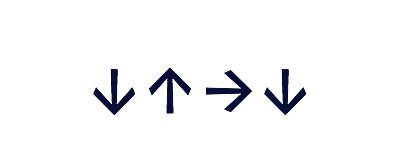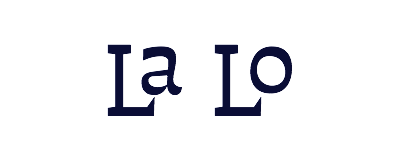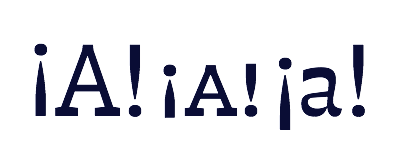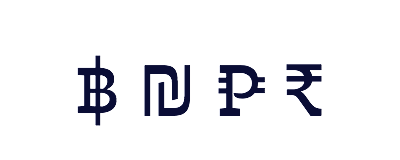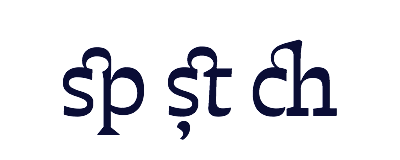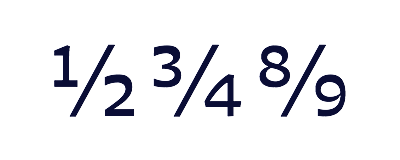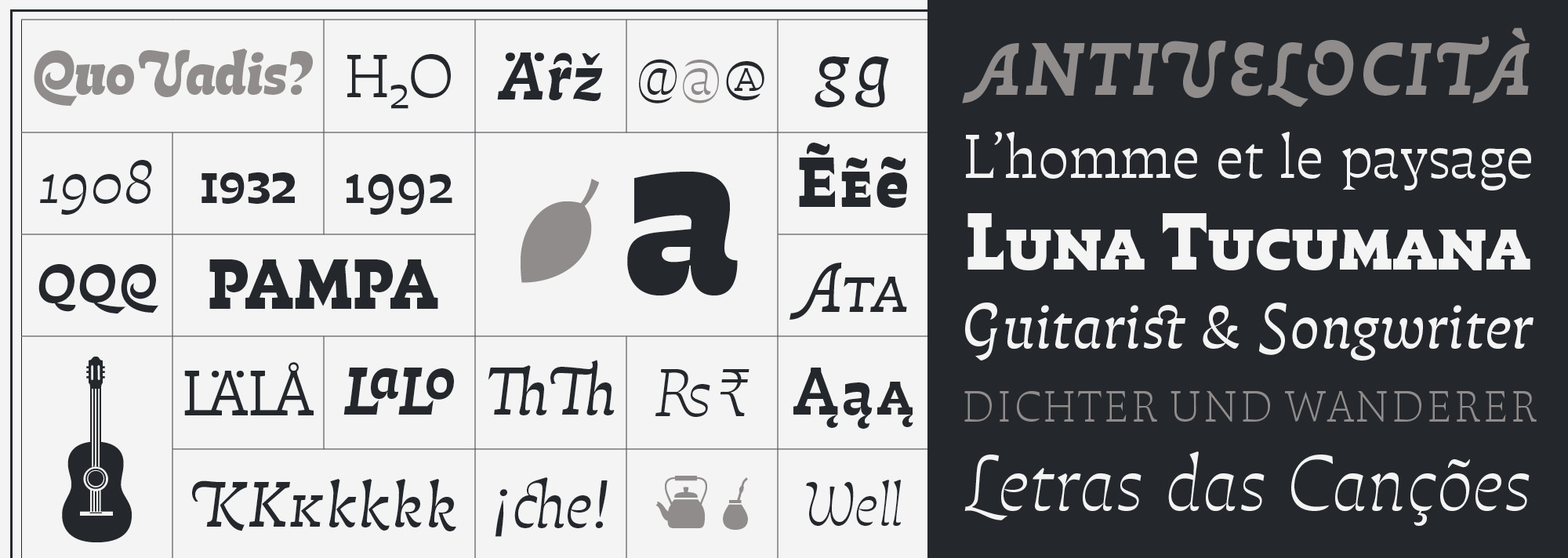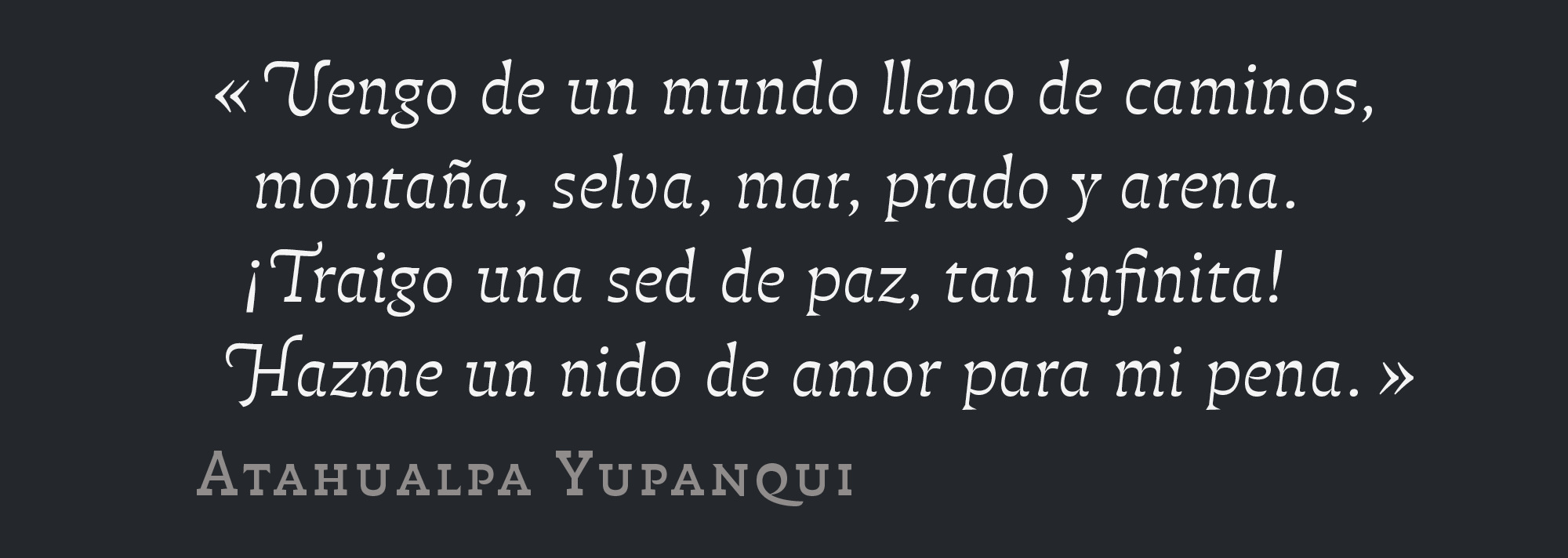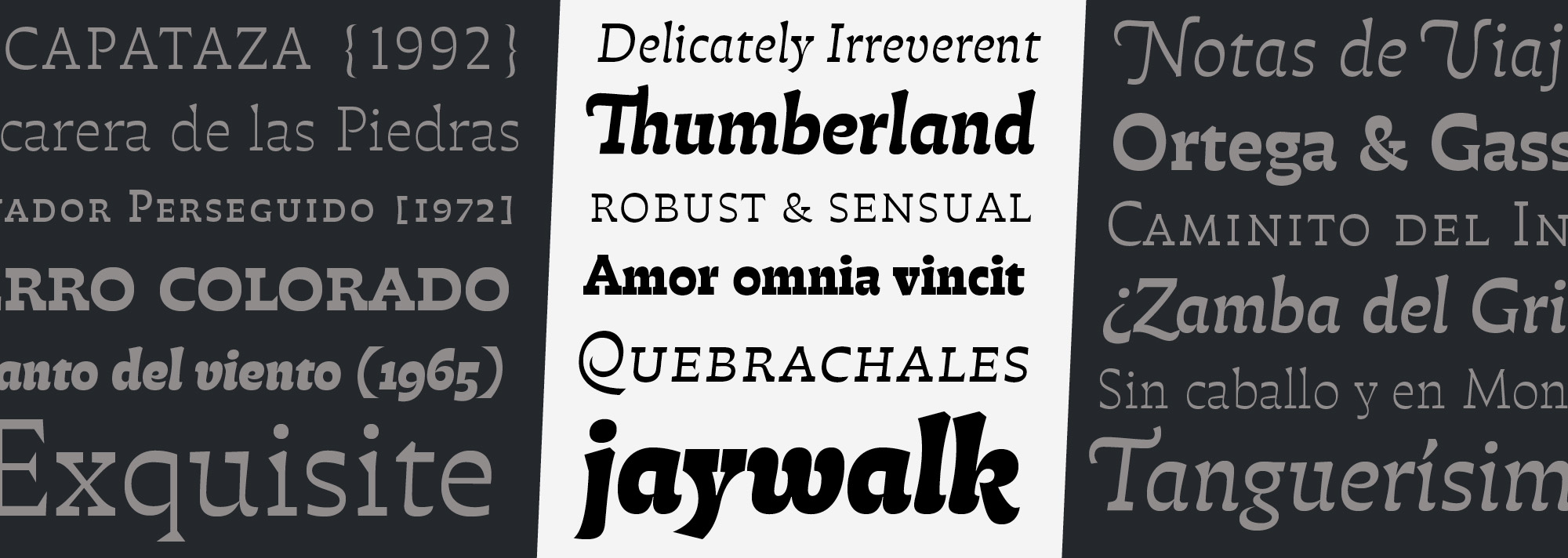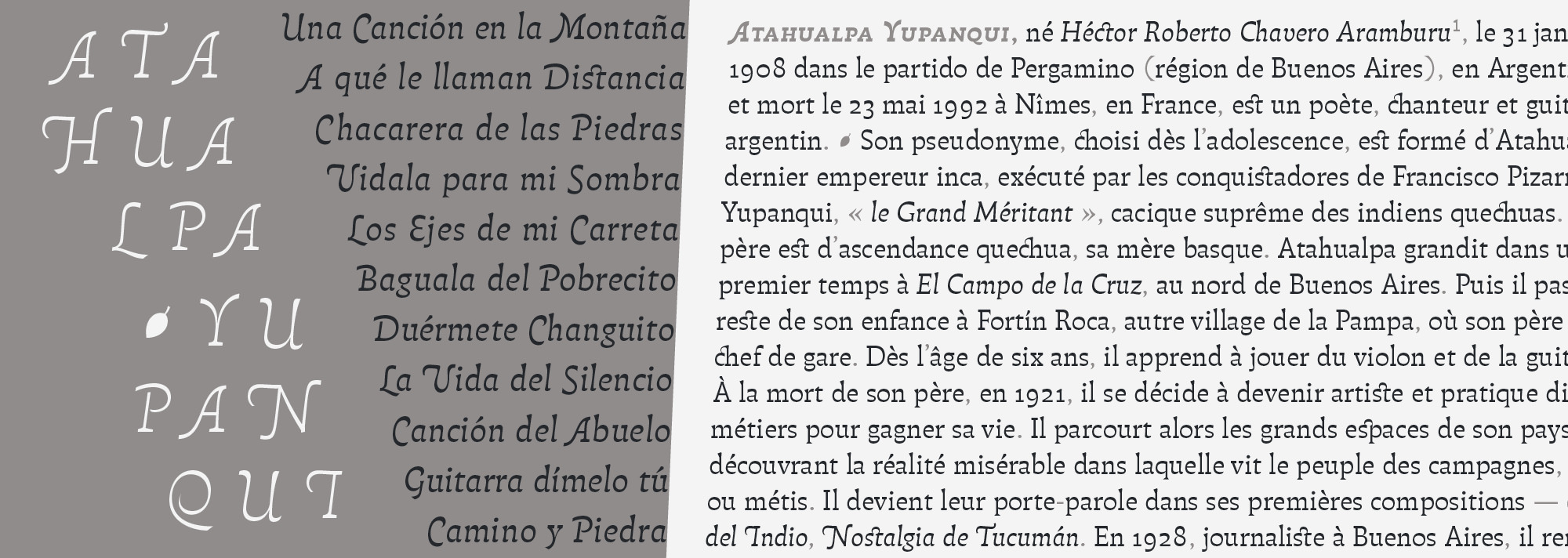
Atahualpa
A typeface full of character and gentle manners
Inspired in the works of Atahualpa Yupanqui, central figure in Argentinean folk music, Atahualpa is an original type design that goes beyond reverse contrast, interpreting the qualities of a sturdy slab serif style with a delicate sense of drawing. This gives Atahualpa a unique spirit of power and warmth, apt to create gentle reading atmospheres in text as well as persuasive headings, logos, and other display uses.
Atahualpa
Designed by Alejandro Lo Celso.
Programmed by Guido Ferreyra.
Characteristics
Language coverage
Latin extended
Characters per font
Atahualpa: 1543
Atahualpa Itálica: 1718
Styles
Atahualpa Blanca
Atahualpa Blanca Itálica
Atahualpa Fina
Atahualpa Fina Itálica
Atahualpa Gris
Atahualpa Gris Itálica
Atahualpa Morena
Atahualpa Morena Itálica
Atahualpa Negra
Atahualpa Negra Itálica
Atahualpa SúperNegra
Atahualpa SúperNegra Itálica
Features & Specials
Smallcaps
all smallcaps
Case sensitive forms
Ligatures
Discretionary ligatures
historical forms
extended currencies
slashed zero
Oldstyle figures
Tab oldstyle figures
Lining figures
Tabular lining figures
Small caps figures
Tabular sc figures
Inferiors
Superiors
Ordinals
Extended fractions
Pointed terminal J
No descender J
Long tail Q
monolinear e
Cursive g
Descending leg k
Curly k
curly k with descending leg
Straight tail y
Curved z
Two storey at